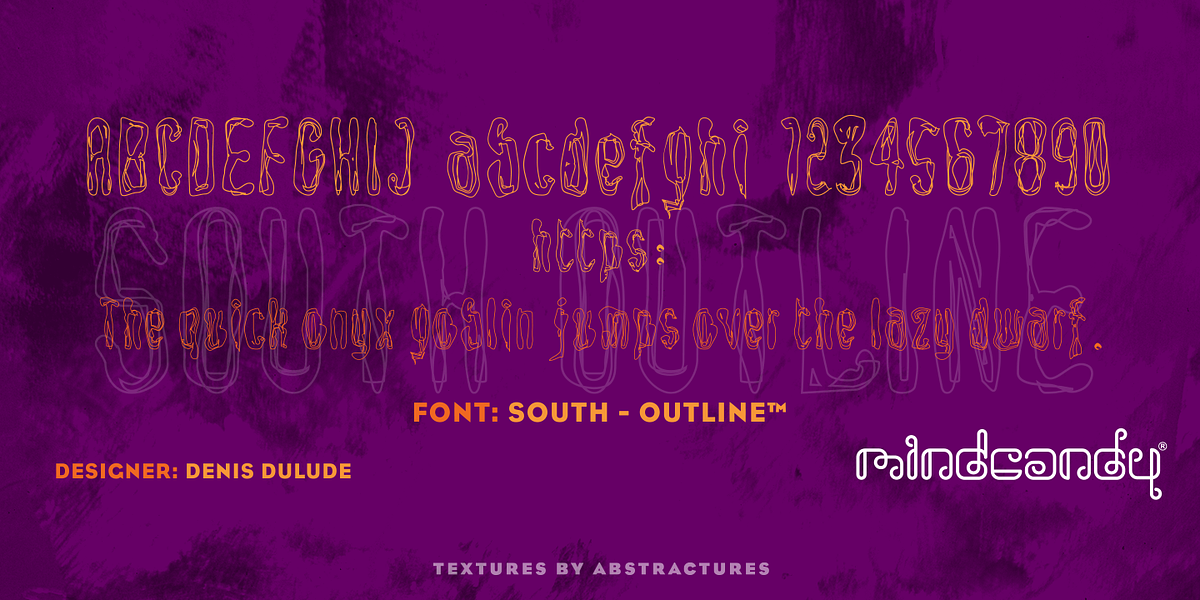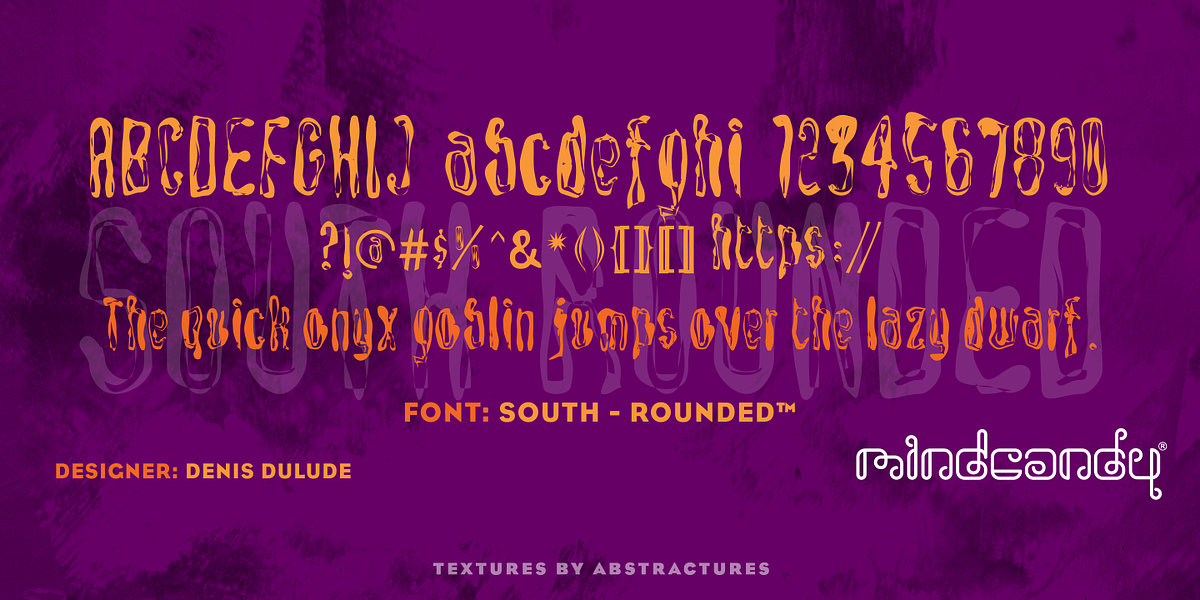
South™
This grunge novelty display font is characterized by its bold, inline style and edgy aesthetic. It's designed for eye-catching headlines and displays.